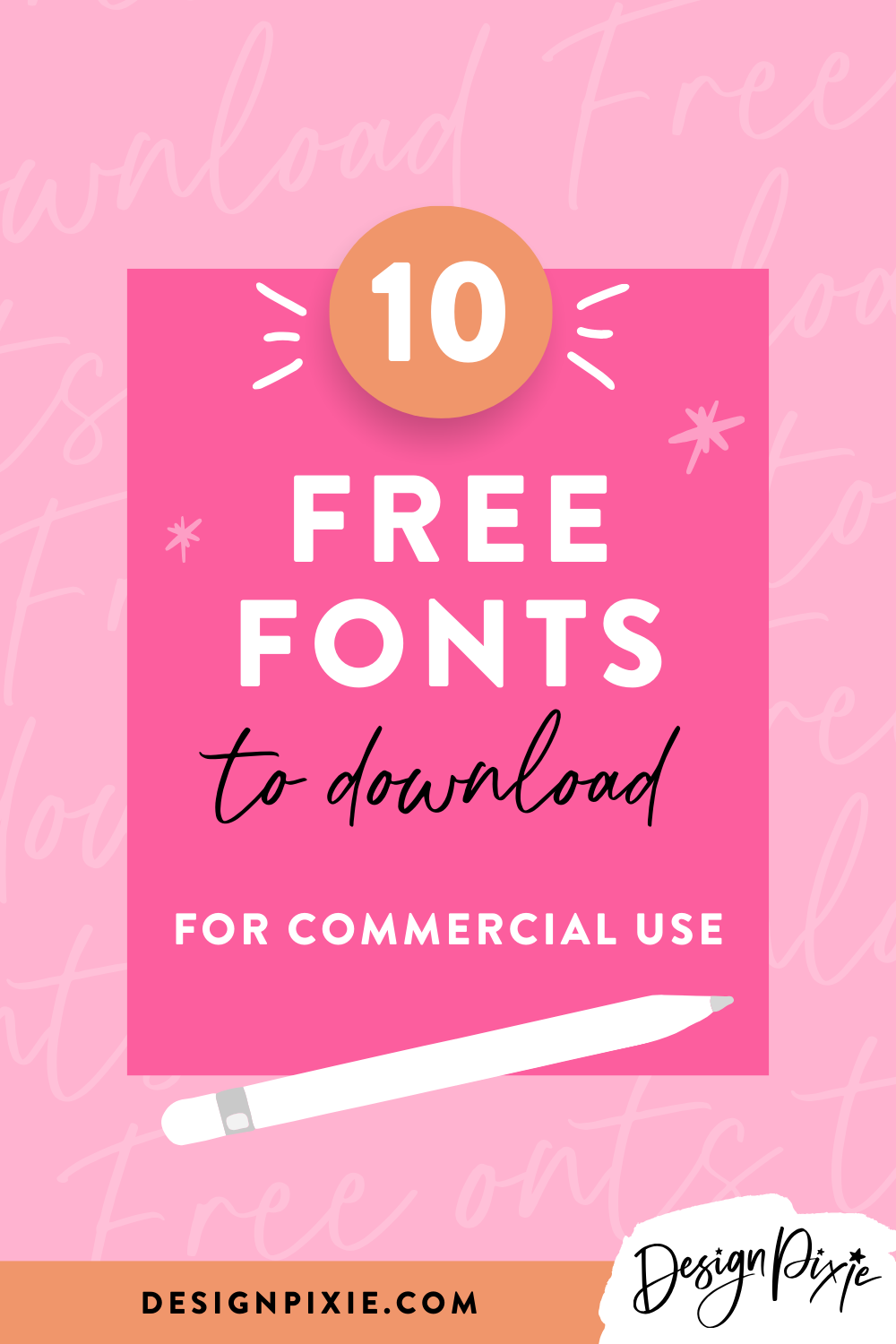
Free Fonts To Download
It has been a while but I thought it was time for a new Free Fonts to download collection! I've found 10 new commercial-use fonts that you're going to love.
The following collection has some wonderful brush stroke fonts, handwritten script fonts, monoline fonts and display fonts. Please find the download links below and more of the best commercial use fonts for creative design work here.
The following fonts are great for branding, project headings, website-use and fun design projects for small businesses. They look great in color and beautiful alone in black. Pair them with plain serif or sans-serif fonts for a stunning font combination.
Tahan is such a classic, beautiful font, and I also love the creativity and flow of Rotters. Haigrast comes as a font duo, so you have the uppercase serif font paired with the elegant script.
• Tahan
• Bettina
• Aboreto
• Fleur de Leah
• BN Roam
• Frenchoy
• Haigrast
• Makcex
• BN Paradox
• Rotters